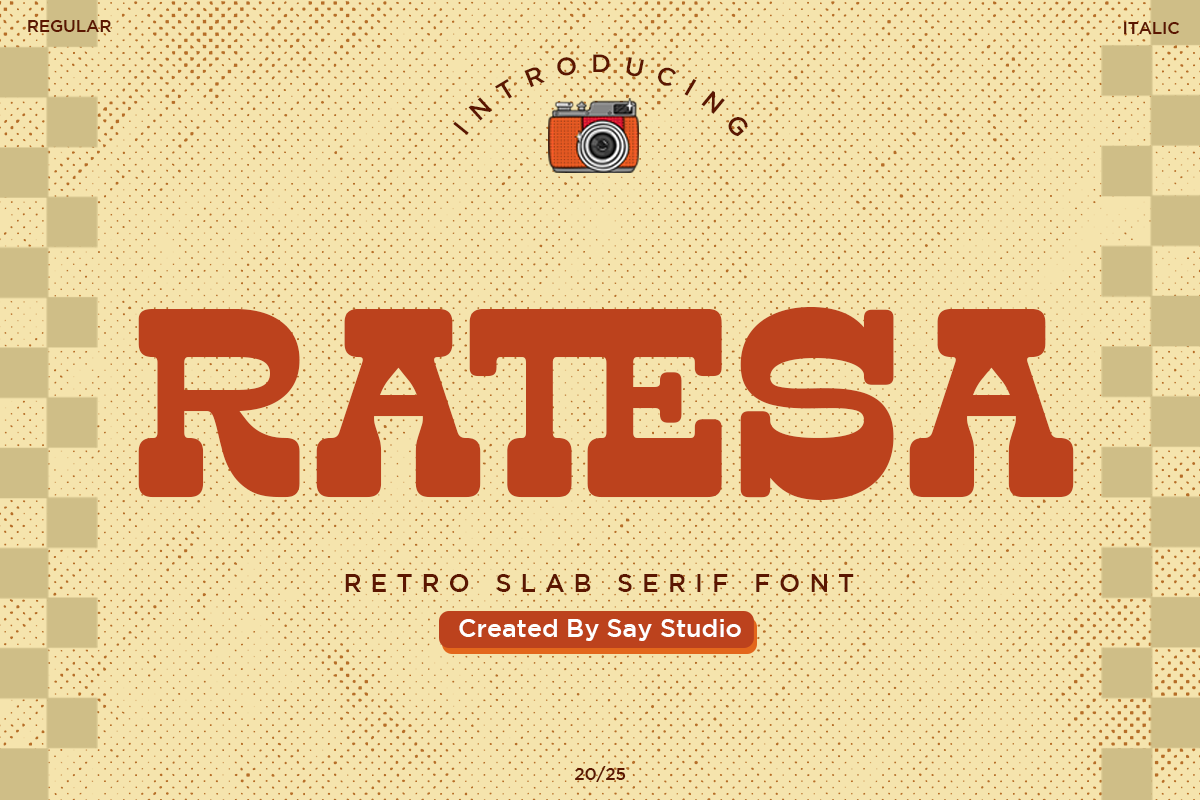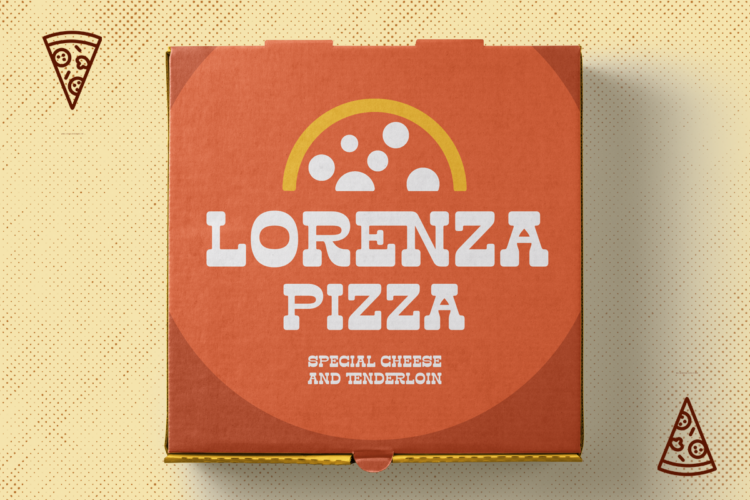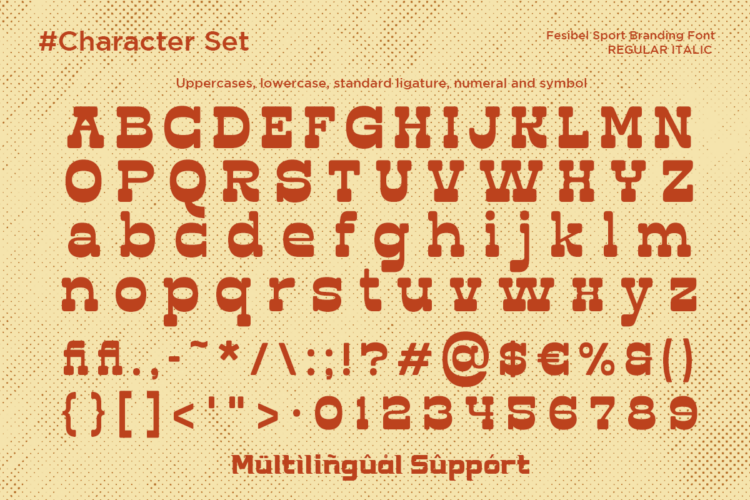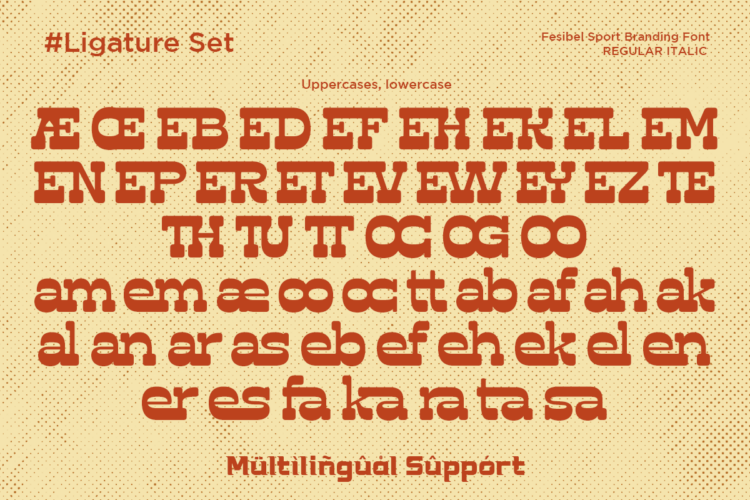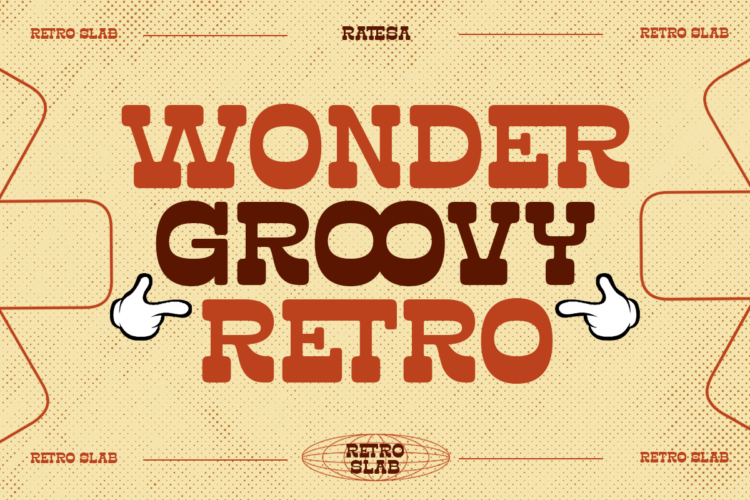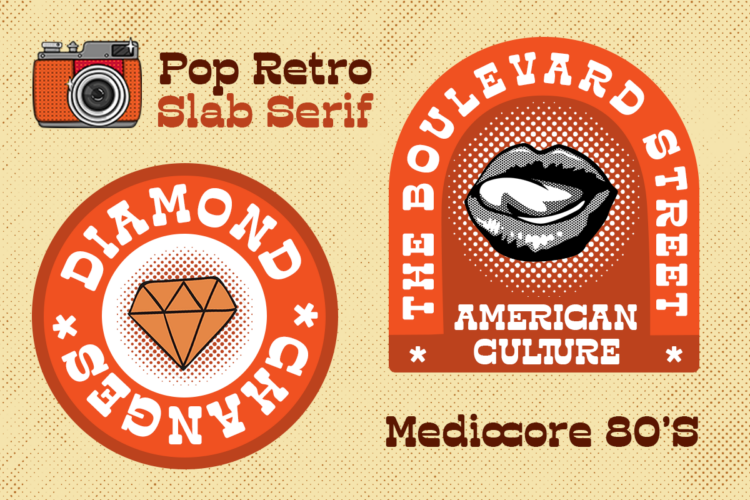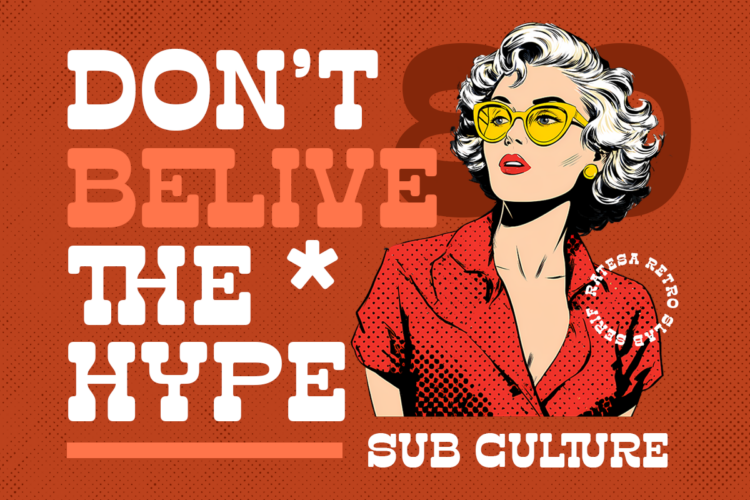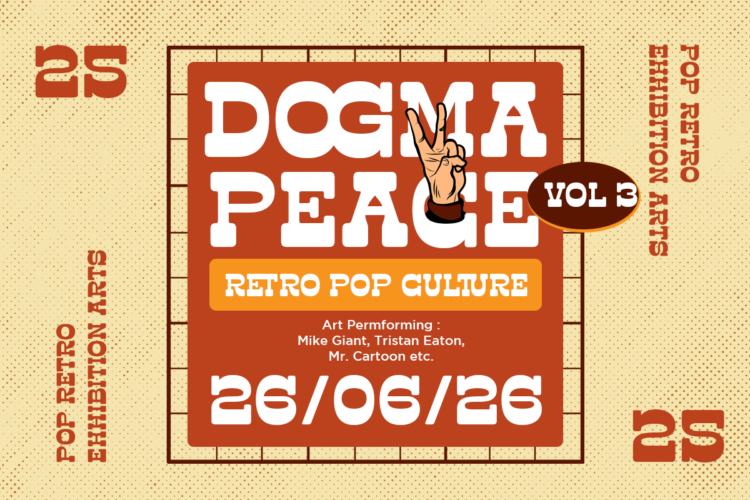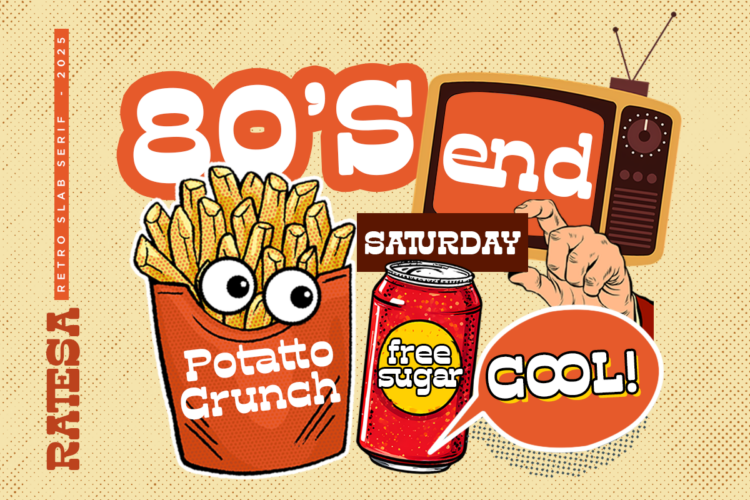
Ratesa – Retro Slab Serif Font
Ratesa is a bold retro slab serif font inspired by the vibrant typography of the 70s and 80s. Featuring chunky letterforms, smooth curves, and playful proportions, it delivers a nostalgic yet modern personality that instantly grabs attention. Complete with regular and italic styles, standard ligatures, multilingual support, numerals, and symbols, Ratesa offers the flexibility needed for both professional branding and creative display projects.
Designed to create bold visual identities, Ratesa is perfect for food packaging, restaurant branding, café logos, snack labels, beverage products, vintage posters, apparel, social media graphics, merchandise, and editorial headlines. Its strong slab serif construction ensures excellent readability while adding a cheerful retro atmosphere that stands out across both print and digital media.
Whether you’re creating nostalgic branding, pop culture artwork, lifestyle packaging, children’s products, streetwear collections, or eye-catching advertising campaigns, Ratesa delivers warmth, personality, and timeless retro appeal. Its distinctive slab serif style makes every headline memorable while bringing authentic vintage charm to modern creative projects.